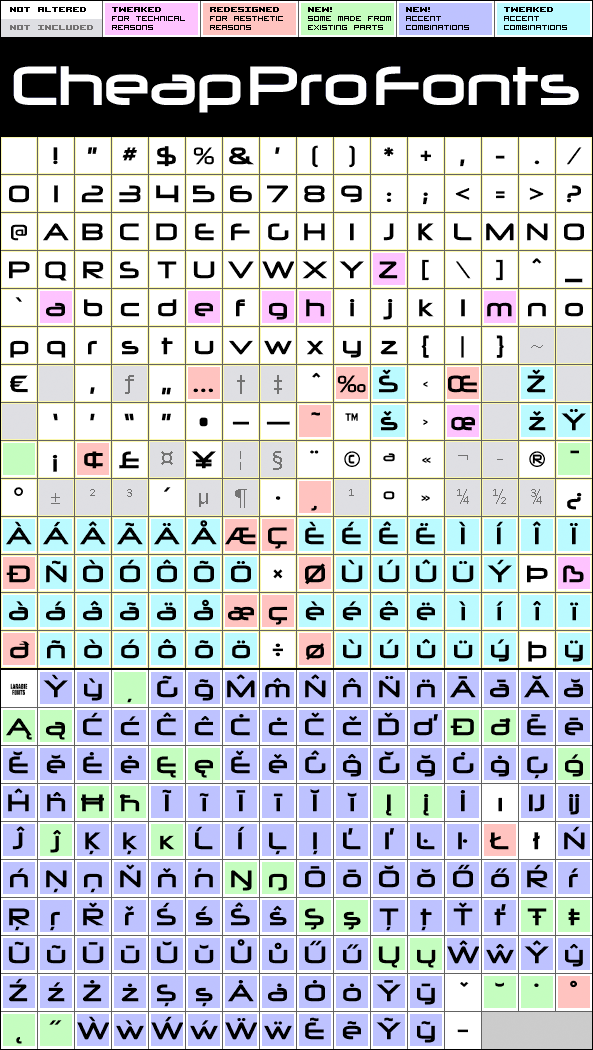
Neuropolitical Pro
Neuropolitical Pro by Ray Larabie
Highlights:
356 glyphs!
(204 in original)
241 class kernpairs
= 5431 kerning pairs
(1216 in original)
Description:
Neuropol is one of Ray Larabies most popular fonts, and I have expanded this squared-off version with our usual large character set.
Ray Larabie says: «"Neuropol" with squared ends».
Neuropolitical Pro is a professionally reworked font that contains an extended character set for setting text in 65 languages requiring more than the basic A-Z!